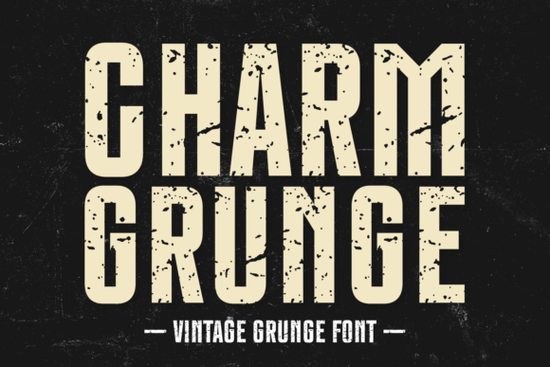
If you're looking for a sans serif font that feels both nostalgic and fresh something with texture but still clean enough for logos, book covers, or T-shirt designs Charm Grunge Font fits quietly into real-world projects without demanding attention. It’s not flashy, but it holds its own: think of the kind of typeface you’d spot on a well-worn band tee from the ’90s, then polished just enough to work on a modern craft label or greeting card.
What makes Charm Grunge different from other grunge fonts?
Most grunge fonts lean hard into distress scratches, cracks, uneven edges that can hurt readability at small sizes or in print. Charm Grunge avoids that trap. Its “grunge” comes through subtle irregularities in stroke weight and character spacing, not visual noise. That means it stays legible on packaging, works cleanly in sublimation printing, and scales well from a tiny tagline on a coffee sleeve to a bold headline on a magazine spread.
It’s also designed with practical multilingual support in mind not just basic Latin characters, but extended glyphs for Eastern European languages like Polish, Czech, and Romanian. If you sell digitally or run a small shop with international customers, that’s a quiet win you won’t find in every decorative sans serif.
Where does it work best?
This font shines where authenticity matters more than perfection. Think:
- Apparel design especially vintage-inspired streetwear, indie band merch, or handmade sweater tags
- Book covers and interiors particularly for memoirs, poetry collections, or fiction with a grounded, human voice
- Greeting cards and stationery its warmth helps handwritten-style layouts feel intentional, not rushed
- Small business branding a local café, ceramic studio, or record shop might use it for signage, menus, or social posts to signal craft and care
You’ll notice it doesn’t try to be everything. It’s not built for technical documents or dense body text and that’s okay. Its strength is in moments of emphasis: a title, a quote, a logo lockup. Pair it with a neutral sans (like North Hiking for contrast) or let it stand alone with generous whitespace.
How does it compare to similar fonts on Creative Fabrica?
Compared to Norfleet Sketch, which leans into hand-drawn looseness, Charm Grunge feels more structured less “sketched in a notebook,” more “designed in a studio.” And unlike Chopard, which has sharper geometry and editorial polish, Charm Grunge keeps its edges soft and approachable.
All three are sans serifs, but they serve different moods. Chopard suits luxury beauty or boutique fashion; Norfleet Sketch fits playful kids’ products or DIY craft labels; Charm Grunge lands somewhere in between ideal for makers who want sincerity over slickness.
Real usage tips for designers and sellers
If you’re using this for print-on-demand, test it early at actual size. Because of its subtle texture, some printers may render fine details differently depending on fabric type or paper stock. Try it on dark backgrounds first it holds up better than many distressed fonts thanks to its balanced contrast.
For digital use, stick to OpenType features like ligatures or alternate characters if your software supports them. They’re subtle, but they add nuance especially in headlines where rhythm matters more than individual letters.
And if you’re building a brand identity system, don’t feel pressured to use Charm Grunge everywhere. A strong secondary font like a simple geometric sans gives it room to breathe. You’ll see this pairing used often in indie publishing and artisanal packaging, where one font carries voice and the other handles function.
Ask yourself:
- Does my project need warmth and texture but still require clarity at medium sizes?
- Am I designing for physical goods (T-shirts, mugs, cards) where subtlety reads better than heavy distortion?
- Do I need support for accented characters beyond basic English?
- Will this font complement, rather than compete with, my existing type pairings?
If you answered “yes” to two or more, Charm Grunge Font is likely a thoughtful, low-risk addition to your toolkit not a trend-chasing pick, but a steady option you’ll reach for again.